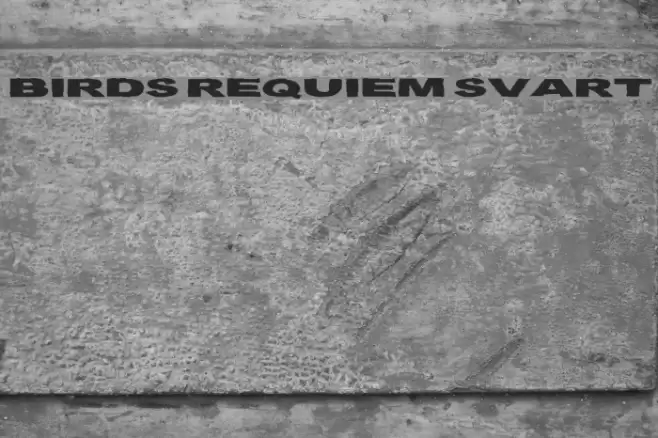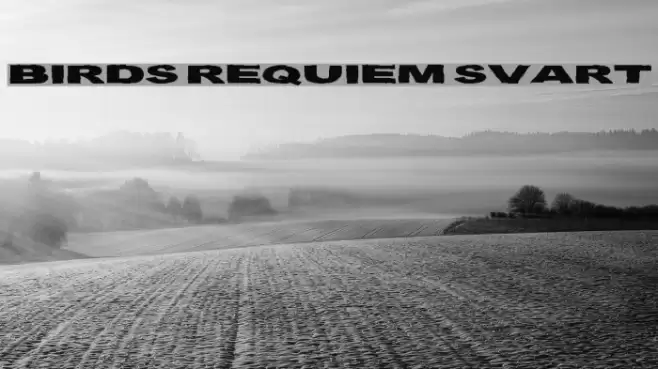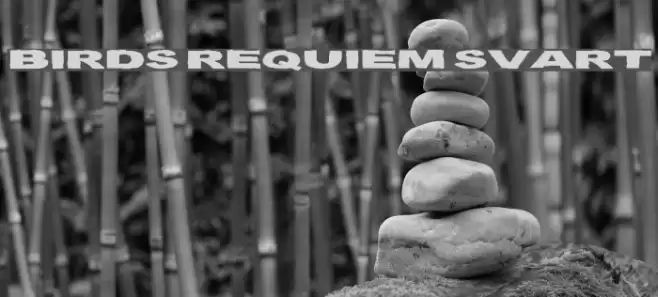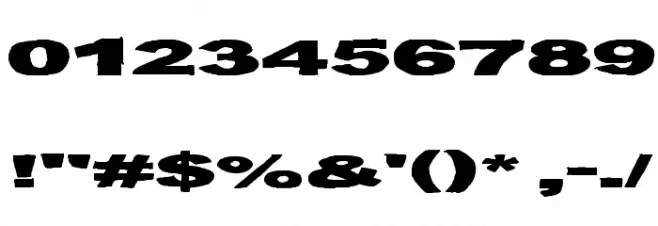
Birds Requiem Svart Font
Birds Requiem Svart Description
This font features a bold and impactful design with a distressed, grunge-like texture that gives it a rugged and edgy appearance. The characters are wide and heavy, with irregular edges that create a sense of movement and dynamism. The uppercase and lowercase letters maintain a consistent style, while the numerals and special characters complement the overall aesthetic. This font's unique style makes it stand out, offering a strong visual presence that is both modern and artistic.
A bold, textured font with a grunge aesthetic and dynamic character design from Distorted Eroded fonts.
- Proposed Projects: Ideal for music album covers, posters, branding for edgy or alternative products, and any project requiring a strong, artistic statement.
- Width: Expanded
- Overall Style: Modern, Artistic